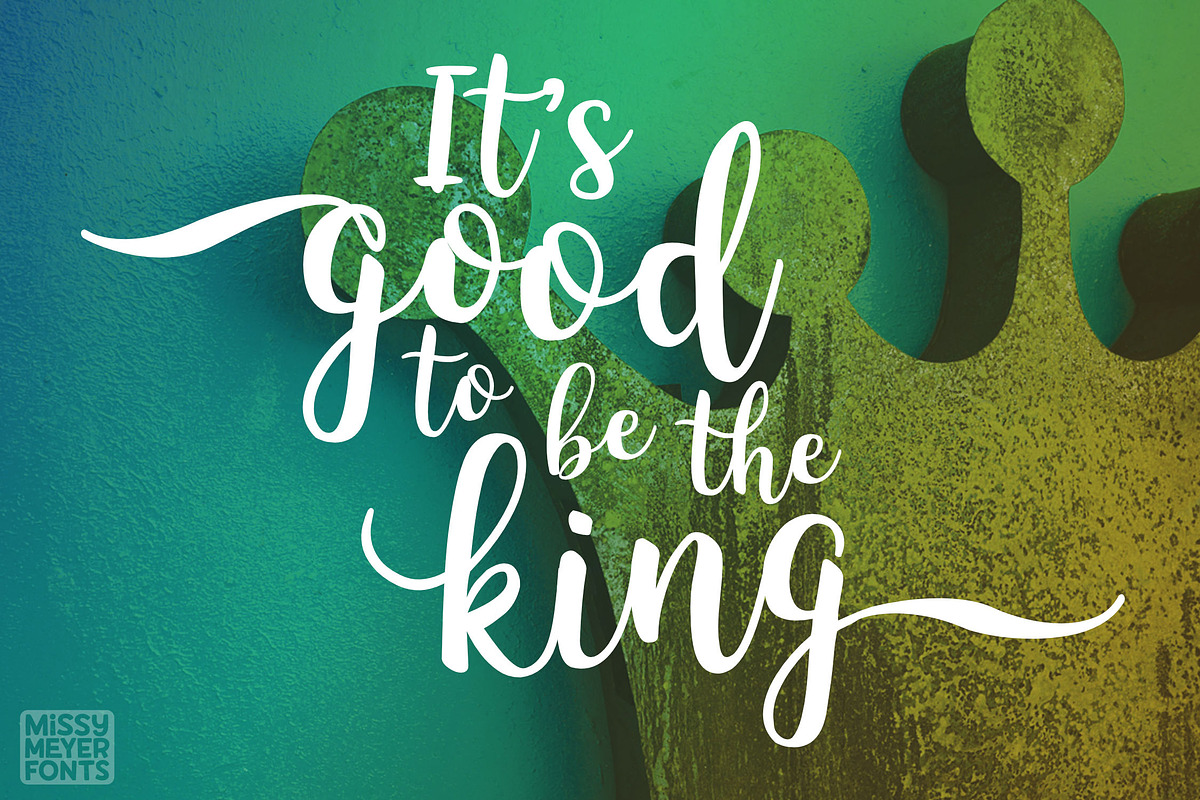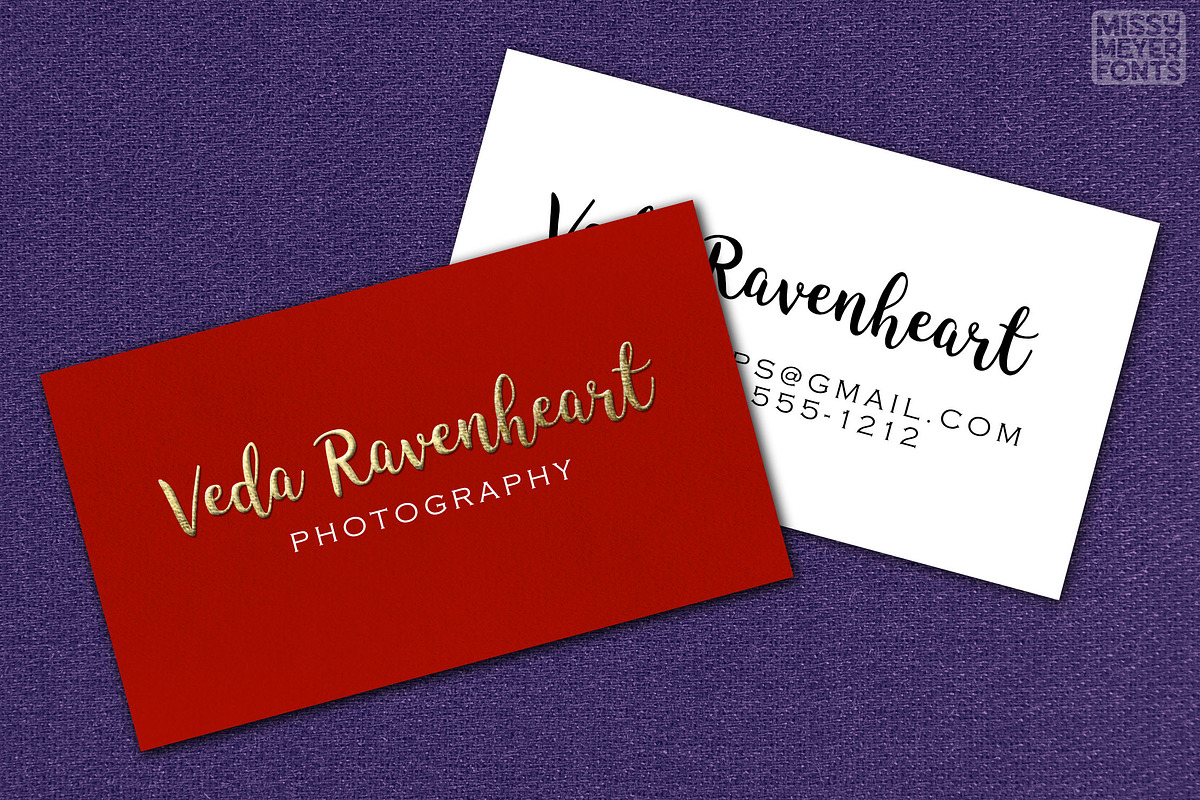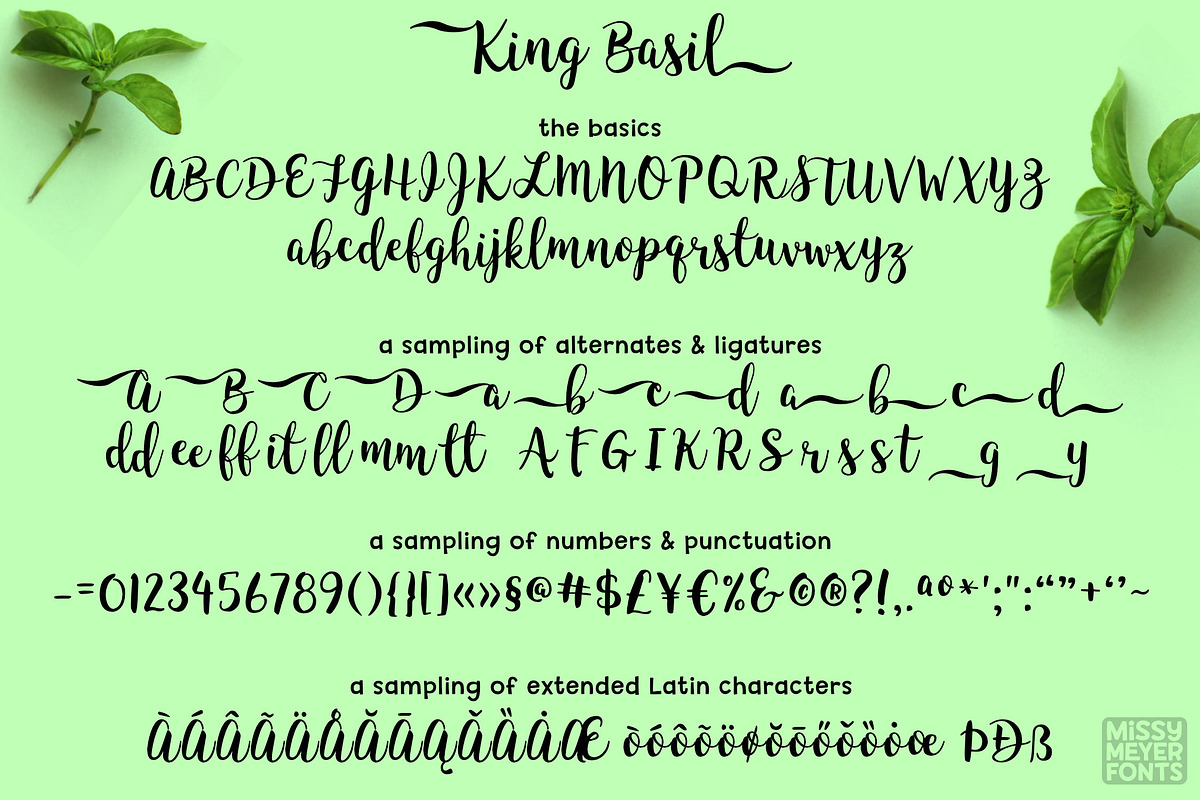
Say hello to King Basil: nearly 500 glyphs, including A-Z, a-z, 0-9, tons of punctuation, 24 ligature sets, over 200 extended Latin characters for language support, entry swash alternates for all uppercase and lowercase letters, exit swash alternates for all lowercase characters … this sucker has a ton of features!
This was the first font I loved enough to list it for sale; to celebrate King Basil’s 9th birthday, I’ve updated this old friend for 2025! There are a number of new alternate letters, many of which were pulled from the original pen-on-paper pages, plus some new ligatures and swashes, and a lot of freshening up and updating of all characters!
King Basil now includes:
- A-Z, a-z, numbers, and tons of punctuation;
- Entry swash alternates for uppercase A-Z and lowercase a-z (mapped to Swash option);
- Exit swash alternates for lowercase a-z (mapped to Stylistic Alternates option);
- 15 double-letter ligatures;
- 24 additional alternates for specific letters;
- Over 200 extended Latin characters for language support;
- A handful of loose swashes to make things extra decorative;
- All characters accessible through character map / PUA encoded!